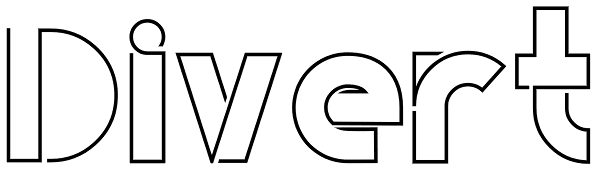
Divert
Based on the outline of each character, Divert works by re-directing each outline as a single meandering stroke that moves back and forth to create a quirky yet clean typeface. The typeface contains an uppercase character set plus two lowercase...